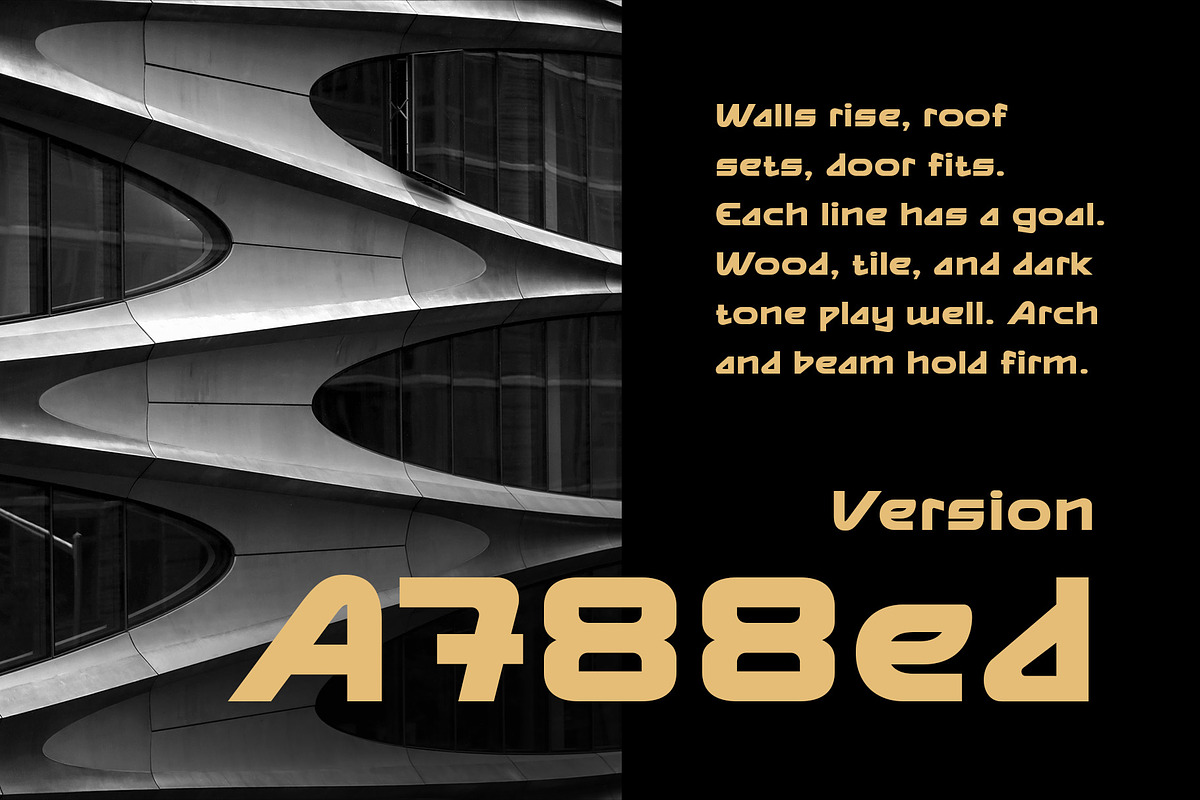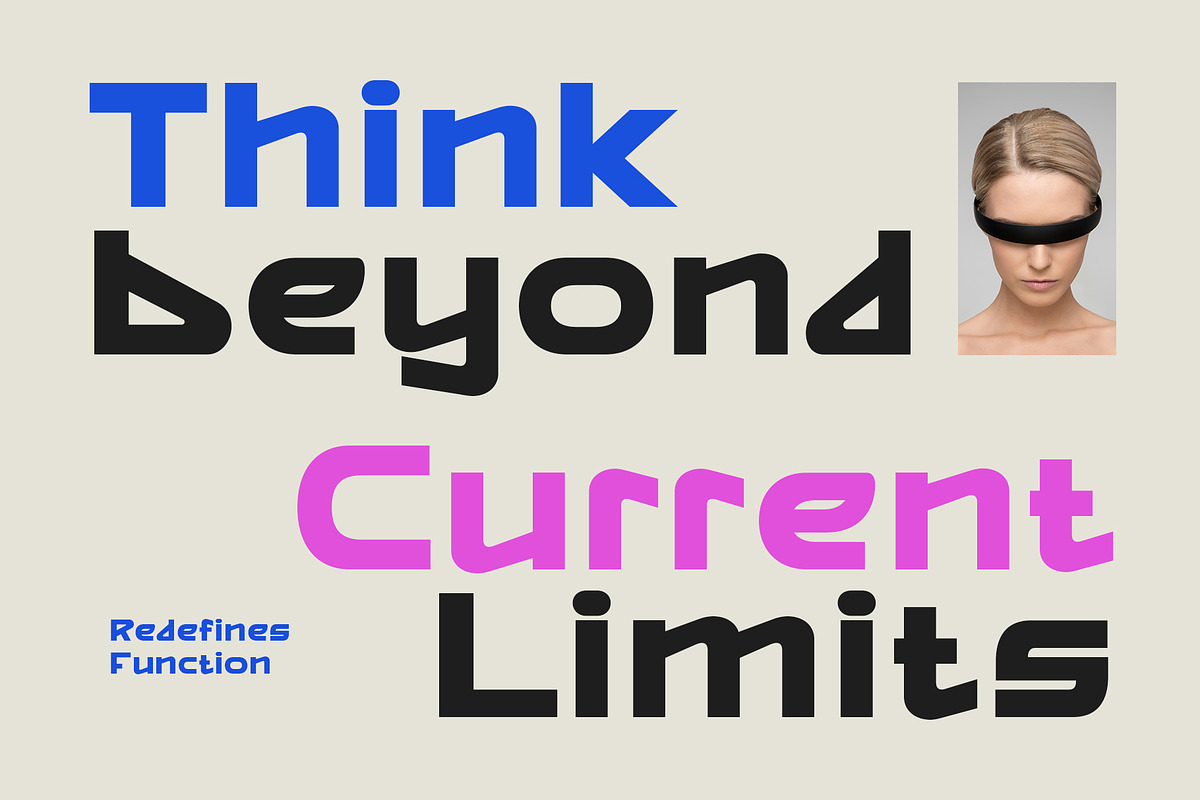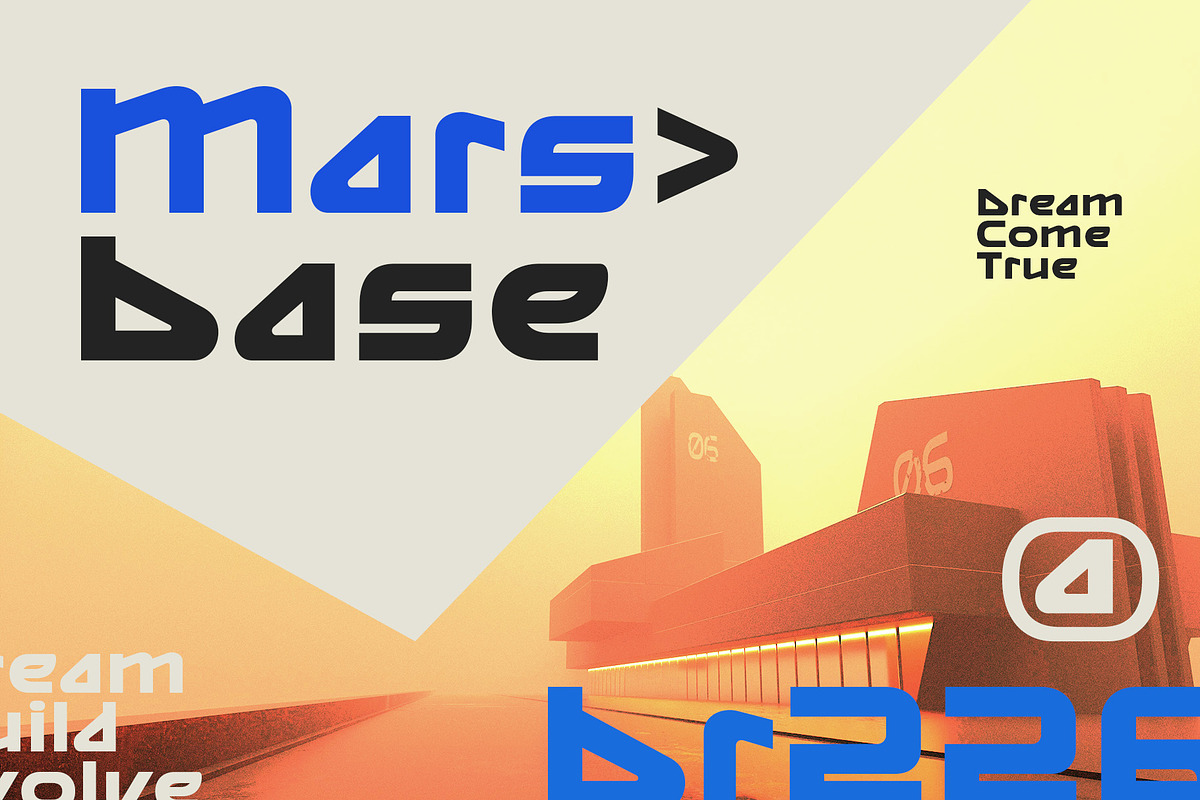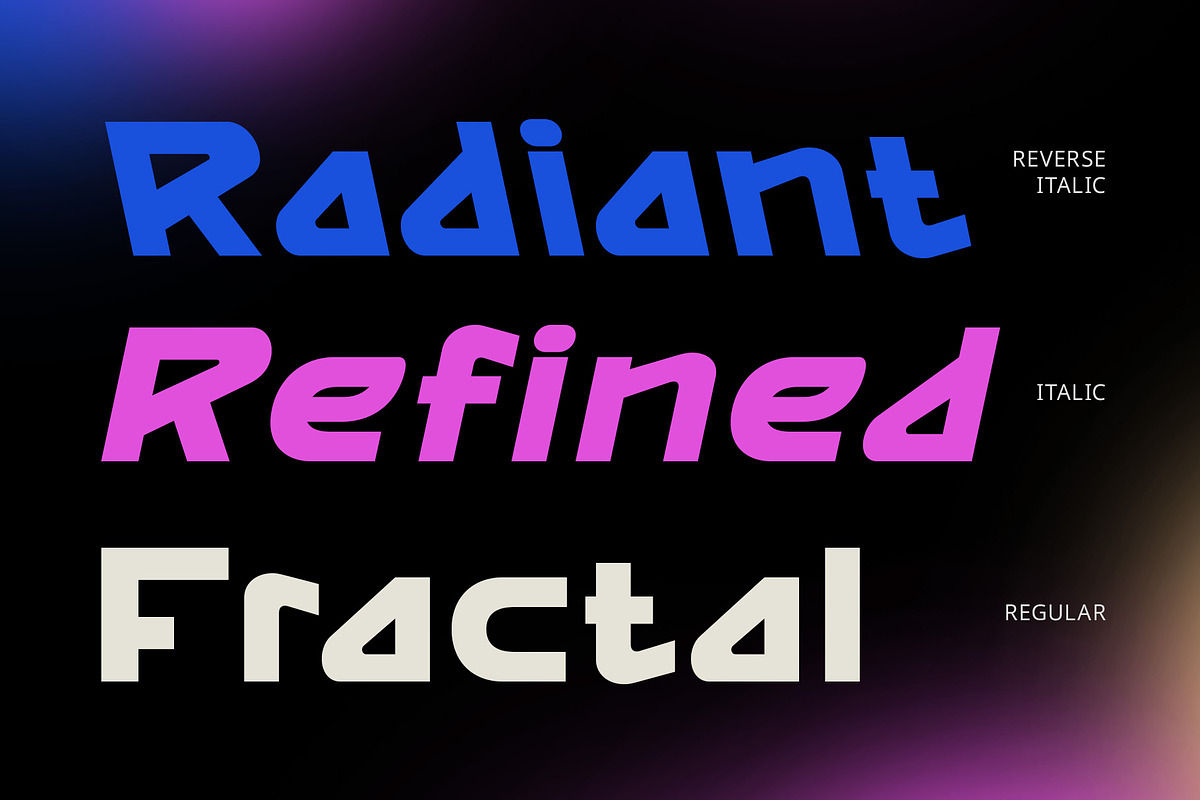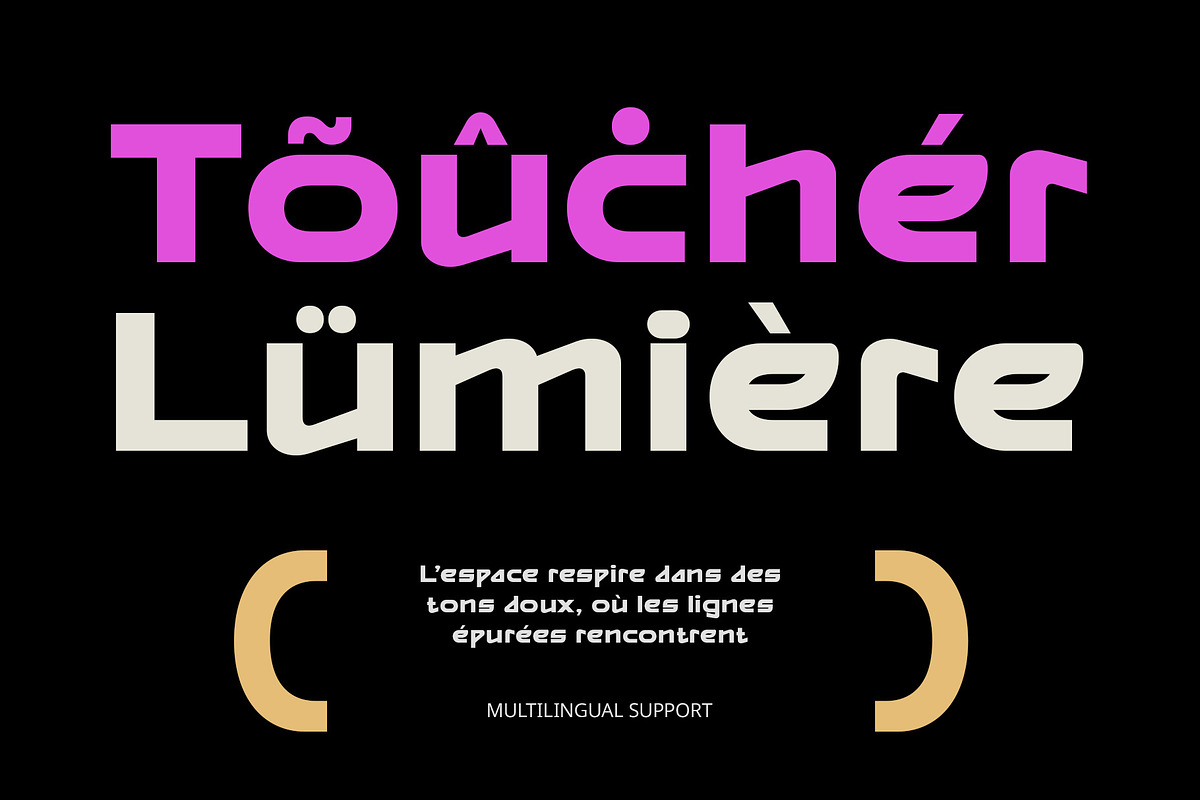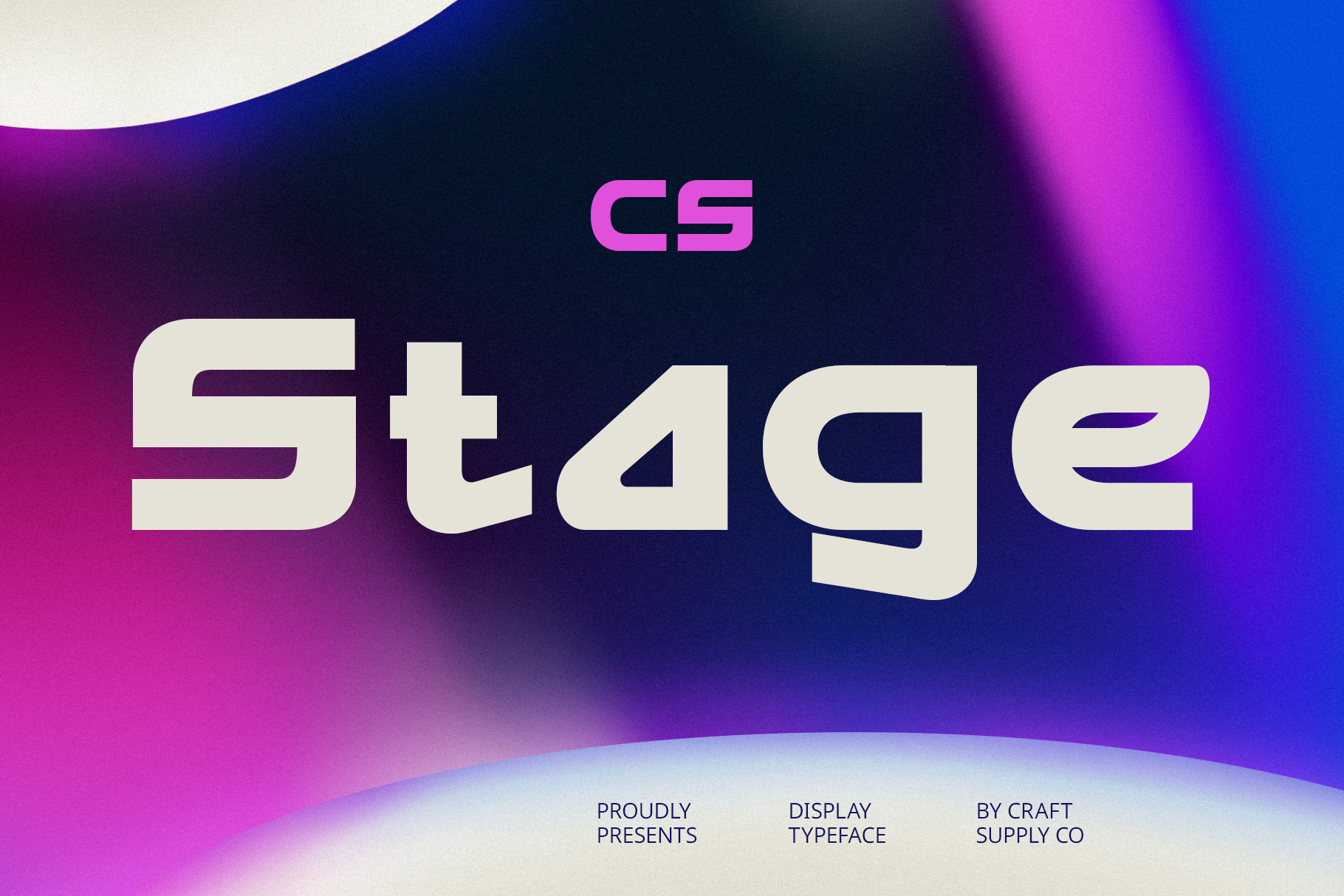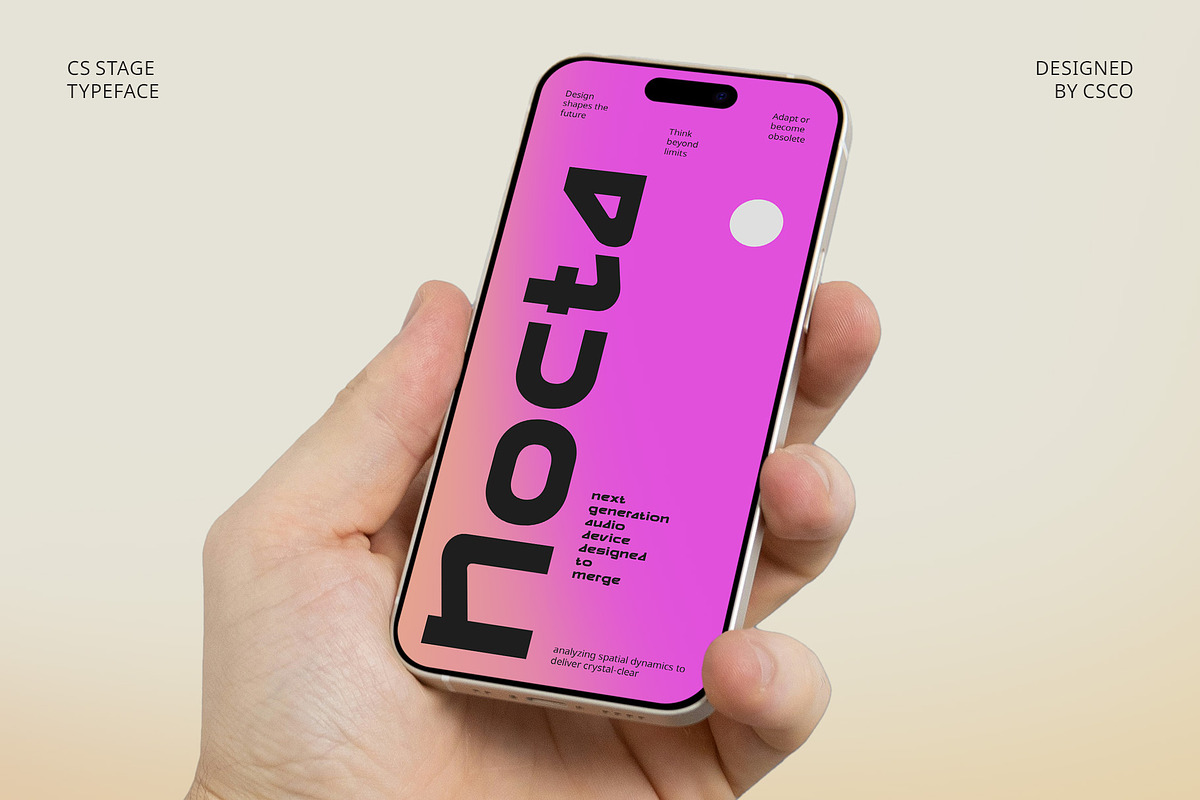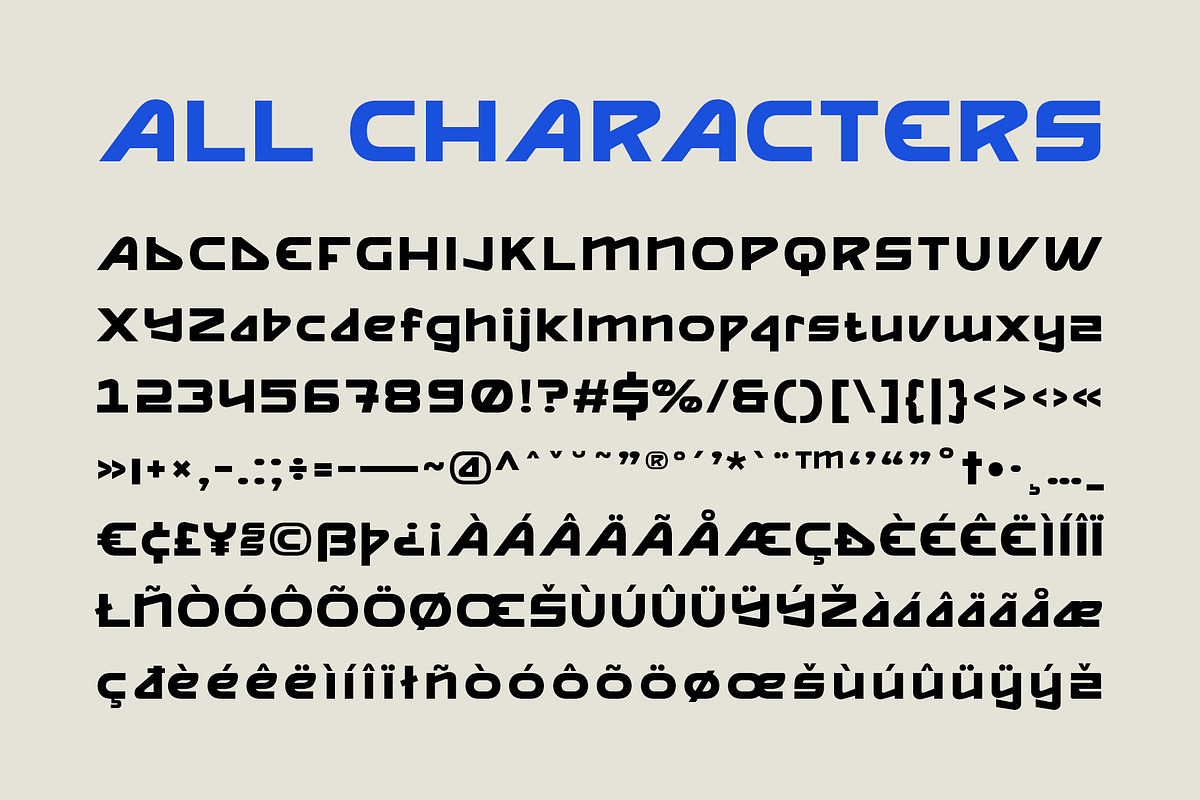
CS Stage – Futuristic Font
CS Stage – Futuristic Font: Bold Geometry for the Future
Futuristic Display Sans Serif Font CS Stage is a futuristic display sans serif font that fuses bold geometric structure with modern minimalism. With clean edges and powerful letterforms, it delivers a sleek, forward-looking appearance, perfectly suited for technology-driven and future-focused design.
Strong Geometric Structure for a Bold Impression Crafted with precision, CS Stage features strong geometric shapes and thick strokes that convey a sense of stability, strength, and clarity. Its symmetrical balance and sharp construction offer a confident tone—ideal for making a lasting impact in digital and physical environments.
Modern Minimalism with a Futuristic Edge While rooted in contemporary sans-serif tradition, CS Stage introduces a futuristic twist through its proportion and styling. The result is a high-tech visual identity that feels both cutting-edge and timeless, perfect for UI/UX, apps, tech startups, and digital platforms seeking a modern, clean voice.
Versatile for Technology, Gaming, and Digital Branding From video game titles and sci-fi posters to sleek interfaces and tech branding, CS Stage brings a commanding presence. Its adaptability across display purposes ensures your message stands out—whether in digital dashboards, futuristic packaging, or promotional visuals.
Designed for Innovation and Visual Impact CS Stage isn’t just a font—it’s a design tool for innovation. Its powerful design language supports creators aiming to break boundaries and envision the future.
- CS Stage Regular
- CS Stage Italic
- CS Stage Reverse Italic